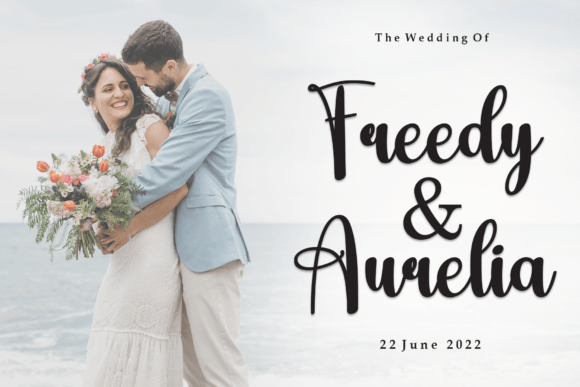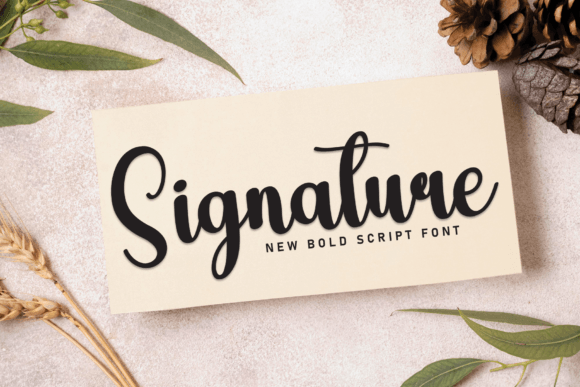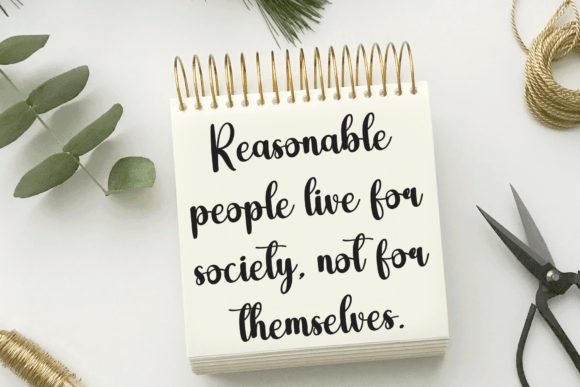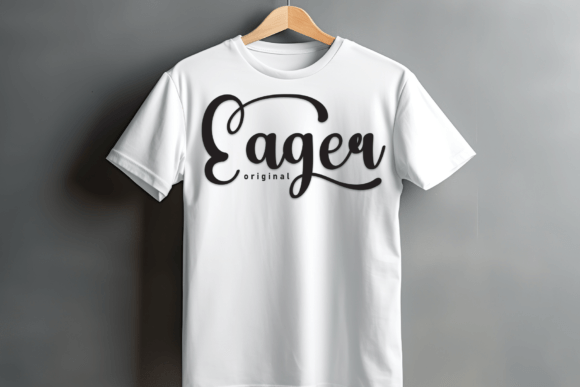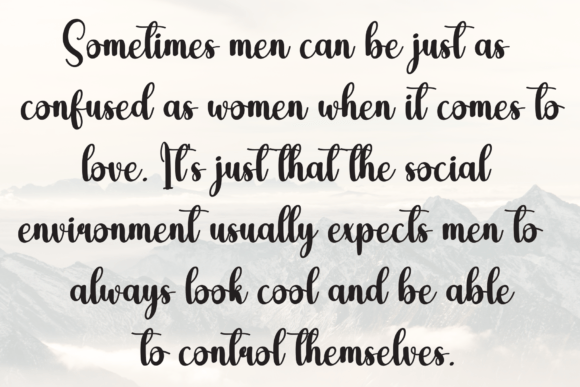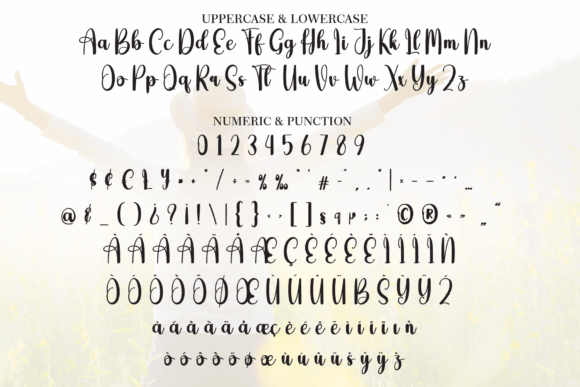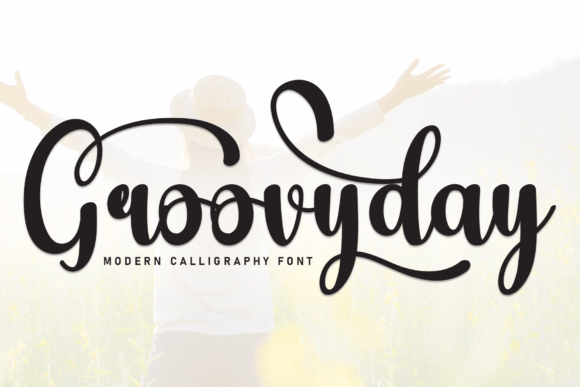
Introducing Groovyday Font: The Ultimate Modern Script Calligraphy Typeface
In the world of typography, a new star has emerged, and its name is Groovyday Font. This modern script calligraphy typeface is making waves with its unique flow and elegant personality, making it the perfect addition to any design project. Whether you’re a designer, crafter, or simply a typography enthusiast, Groovyday Font is sure to captivate you with its charm.
What Makes Groovyday Font Special?
Groovyday Font is not just another script font; it’s a carefully crafted typeface that exudes elegance and sophistication. Its unique flow and fluid strokes make it perfect for creating beautiful, eye-catching designs that demand attention. With Groovyday Font, you can add a touch of luxury and refinement to your designs, making it ideal for high-end branding, logos, and marketing materials.
Groovyday Font is an incredibly versatile typeface that can be used for a wide range of design projects. Whether you’re working on a logo design, branding campaign, or creating eye-catching covers and posters, Groovyday Font is the perfect choice. Its elegant personality and modern aesthetic make it suitable for various industries, including:
- Logo design: Create stunning logos that make your brand stand out with Groovyday Font’s unique and elegant style.
- Branding: Elevate your brand’s visual identity with Groovyday Font’s sophisticated and luxurious feel.
- Covers: Design captivating book covers, album covers, or movie posters that grab attention with Groovyday Font’s beautiful script.
- Posters: Create stunning posters that showcase your message in style with Groovyday Font’s elegant and modern aesthetic.
Why Choose Groovyday Font?
With so many fonts available, why choose Groovyday Font? Here are just a few reasons why Groovyday Font stands out from the rest:
- Unique and elegant style: Groovyday Font’s modern script calligraphy style is unlike any other, making it perfect for designers looking for something fresh and exciting.
- High-quality design: Groovyday Font is meticulously crafted to ensure that every letter, stroke, and curve is perfect, resulting in a high-quality design that looks professional and polished.
- Versatility: Groovyday Font can be used for a wide range of design projects, making it a valuable addition to any designer’s toolkit.
Tips for Using Groovyday Font Effectively
To get the most out of Groovyday Font, here are some tips for using it effectively:
- Pair it with contrasting fonts: Combine Groovyday Font with contrasting fonts to create visual interest and add depth to your designs.
- Experiment with colors: Groovyday Font looks stunning in a variety of colors, so don’t be afraid to experiment and find the perfect hue for your design.
- Play with sizes: Groovyday Font can be used in a range of sizes, from large headlines to smaller body text, so experiment with different sizes to find the perfect fit for your design.
Groovyday Font is a game-changing modern script calligraphy typeface that’s sure to revolutionize the world of typography. With its unique flow, elegant personality, and versatility, it’s the perfect addition to any design project. Whether you’re a designer, crafter, or simply a typography enthusiast, Groovyday Font is a must-have in your toolkit. So why wait? Get creative with Groovyday Font today and take your designs to the next level!